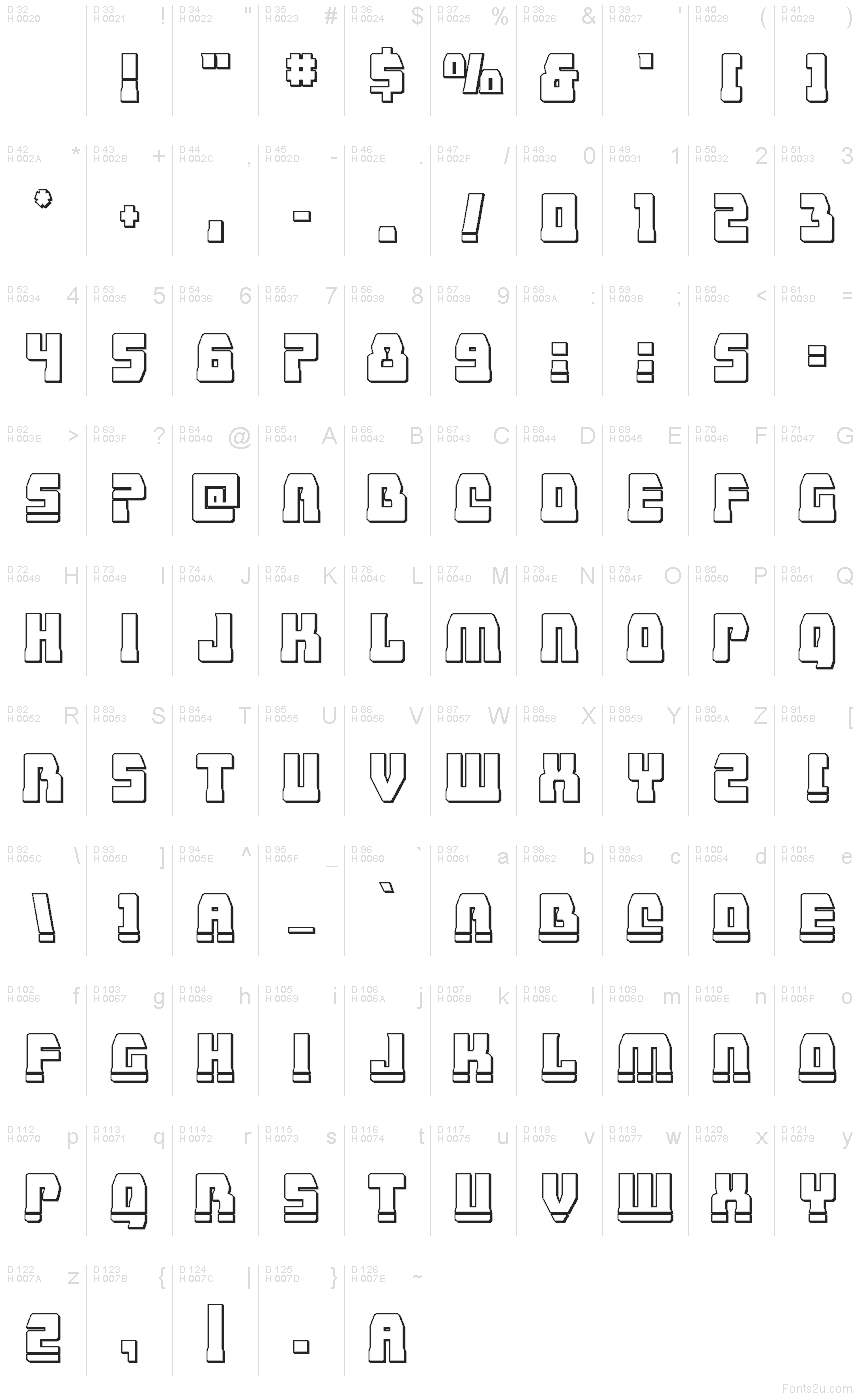
Librator Stripe 3D
Librator Stripe 3D font by Iconian Fonts is a bold geometric display typeface inspired by industrial and futuristic designs. The clean lines and strong presence of the lettering are fit to be associated with technology, science, and engineering. Its aspects are blocky, a little sporty, but totally readable making it suitable for long text even if not ideally suited for this use.
Technology branding that needs blocky letters should employ this free techno display font as well as video game titles in where descriptions can help enhance interactivity and engagement. Sci-fi movies use cases include movie titles design and posters provided they require a dash of futurism done otherwise than digitally on screen.